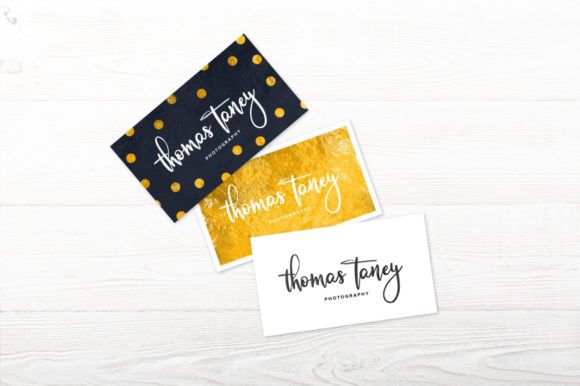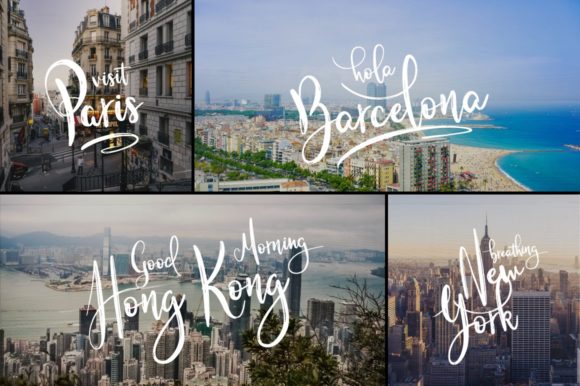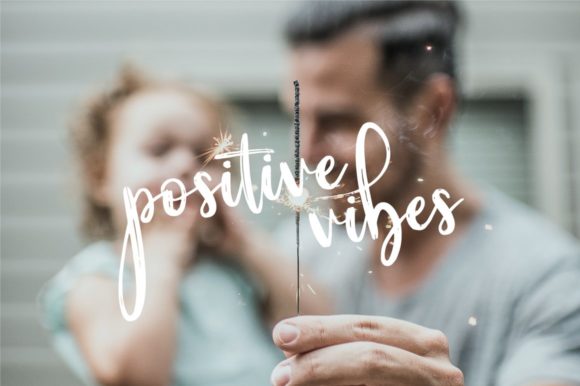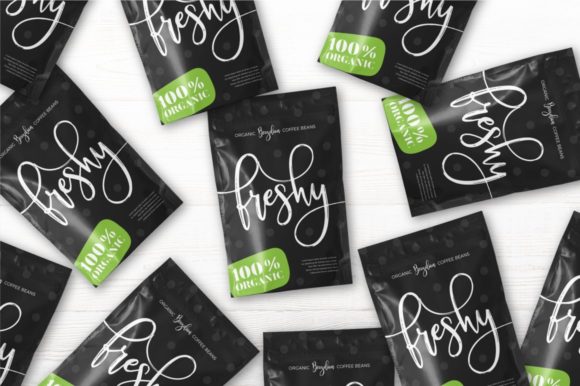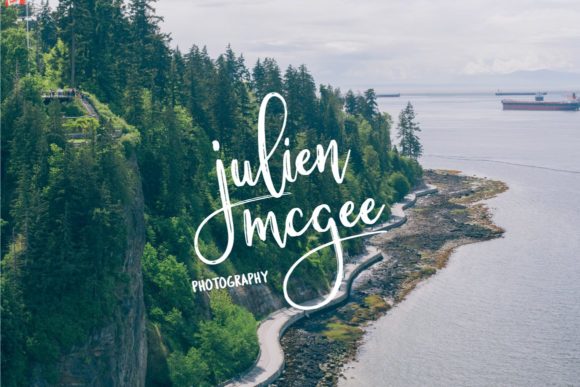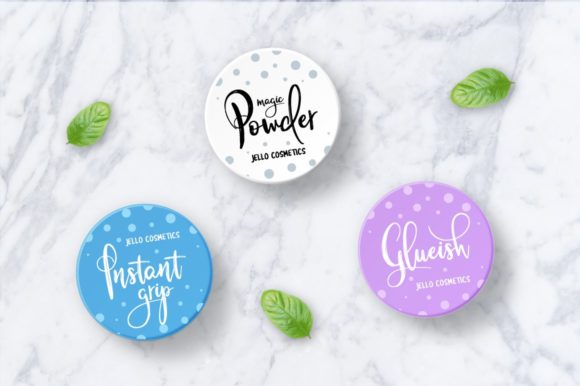
HomeScript FontsSmaragdines Font Script Fonts Smaragdines Font FacebookXPinterestWhatsApp Smaragdines Font Poster 2 Smaragdines Font Poster 3 Smaragdines Font Poster 4 Smaragdines Font Poster 5 Smaragdines Font Poster 6 Smaragdines Font Poster 7 About Smaragdines Font Smaragdines is an equally rough and authentic script font featuring bold swashes and smooth curves. DOWNLOAD NOW People also explored Ballerina Star Font Paradise Font Credibly Font Pink House Font Sweety Font Bethavera Font Jigsaw Pattern Lettering Font Kalpatrie Font Vanilla Ice Font 339 0 TagsSmaragdines Font Previous articleHello Stockholm FontNext articleLittle Bestseller Font LEAVE A REPLY Cancel reply Comment: Please enter your comment! Name:* Please enter your name here Email:* You have entered an incorrect email address! Please enter your email address here Website: Save my name, email, and website in this browser for the next time I comment. Personal Use Free Arc Personal Use Free Read more about this font Market Love Personal Use Free Read more about this font Playground Clip Art Personal Use Free Read more about this font Sybil Green Personal Use Free Read more about this font BLOG Exploring Font Trends Shaping Communication in the Digital Era Fonts, like all design elements, are subject to trends. They play a crucial role in communicating a brand's personality,... Using Fonts in Digital Marketing: Tips to Strengthen Your Brand Identity Best Fonts for YouTube Videos: Make Your Thumbnails Stand Out Top 7 Google Fonts Alternatives for Faster and Privacy-Friendly Web Design (2025)